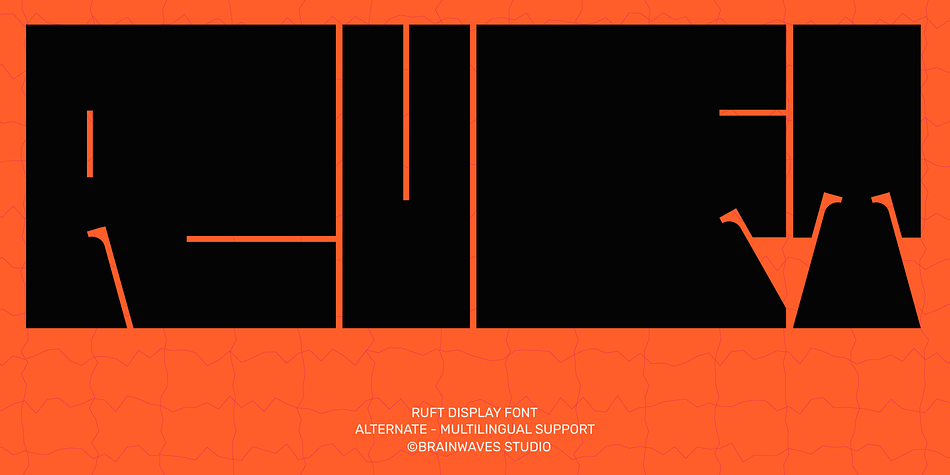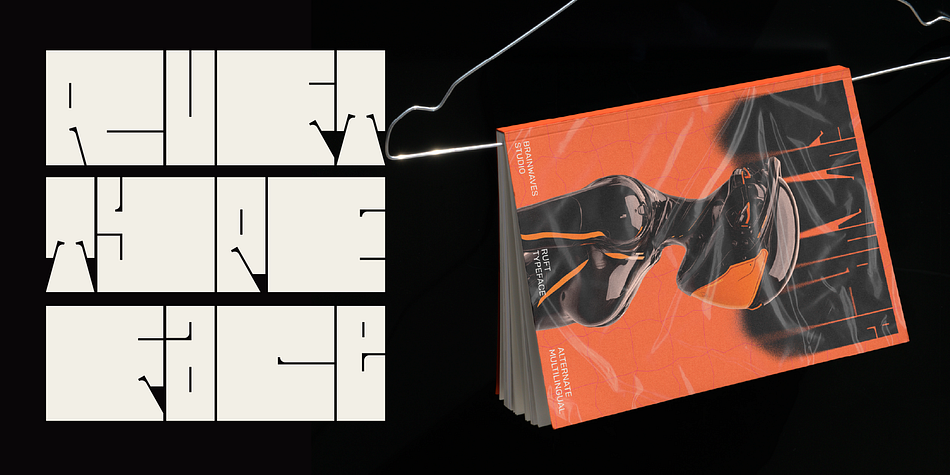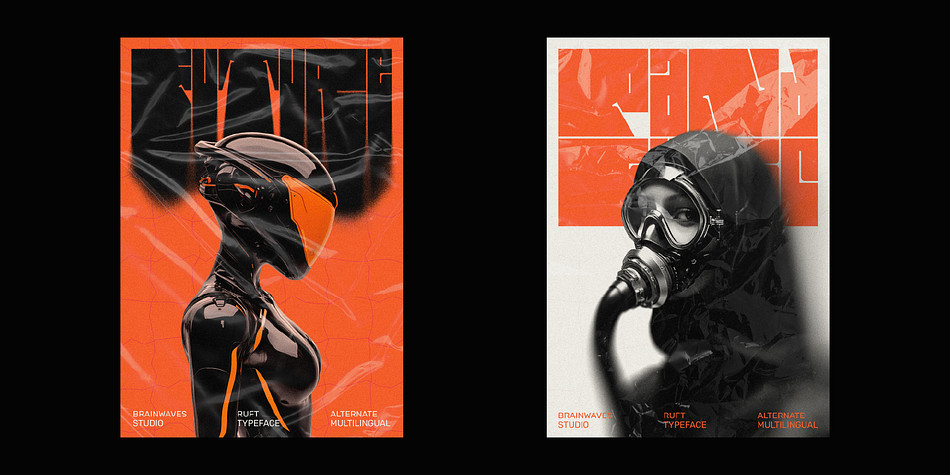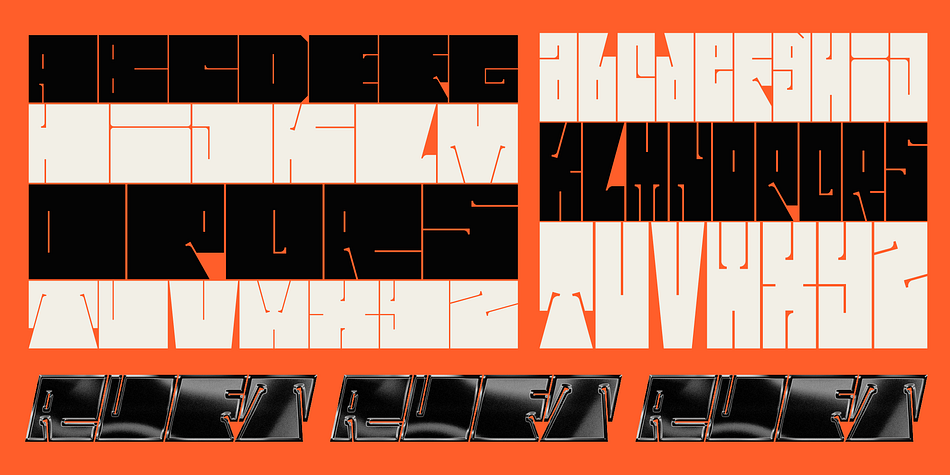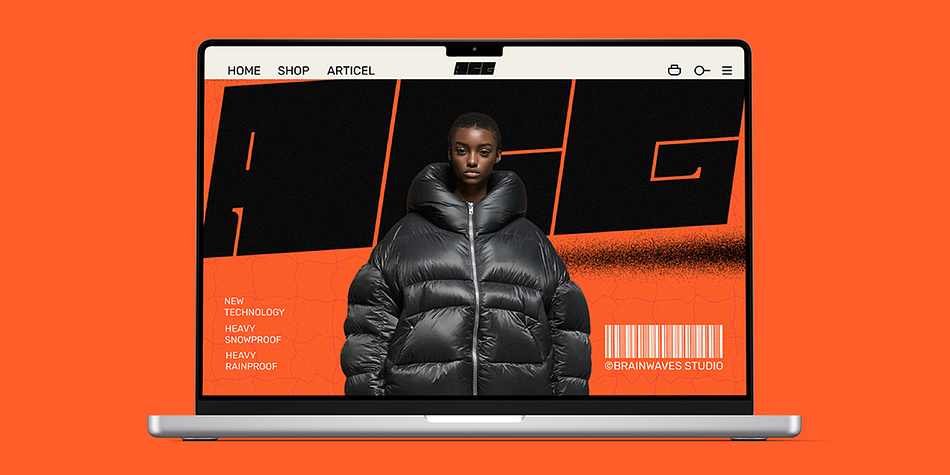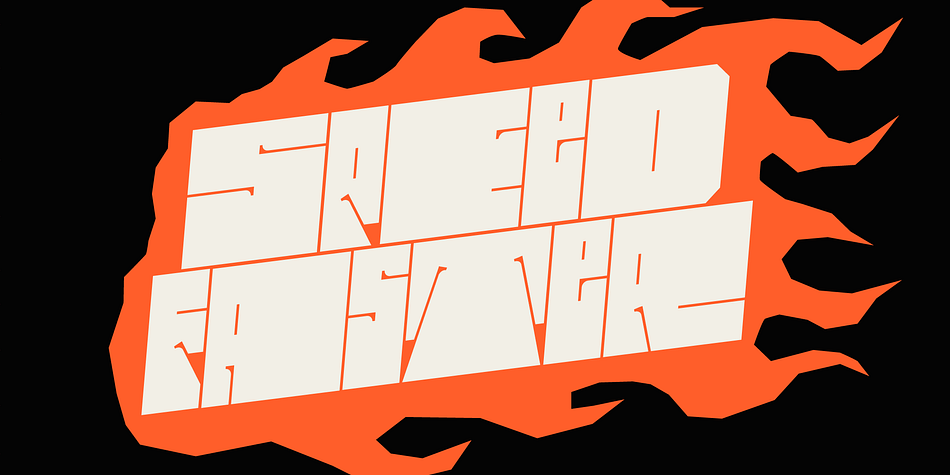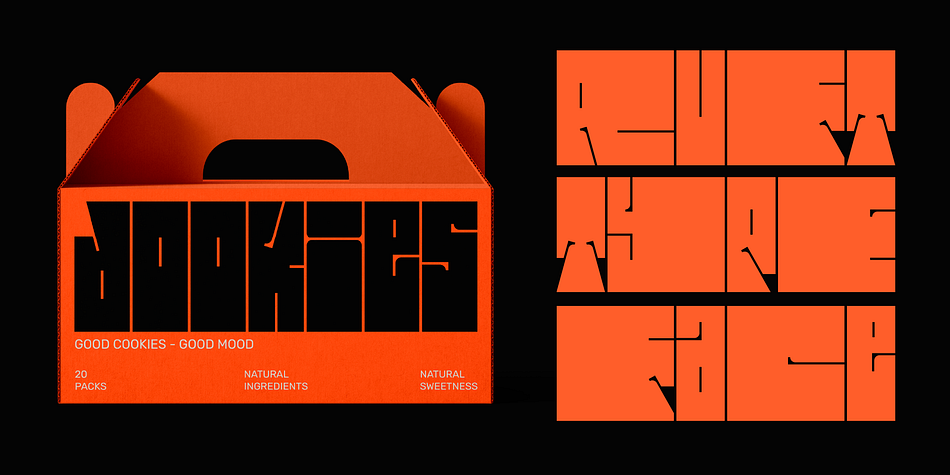
Ruft
Designed by Lucky Fitriadi, Ruft is a display sans font family. This typeface has two styles and was published by Brainwaves Studio.
RUFT is a heavy display typeface inspired by brutalist structures and modular grid systems. Each letter is crafted to occupy space with confidence—thick, compact, and sharply cut. With its futuristic edge and architectural weight, RUFT is built for statements that can’t be ignored. Perfect for music visuals, fashion branding, or experimental layouts, this font thrives in bold, disruptive design.
Beyond its visual punch, RUFT is functionally versatile with multiple character styles and wide language support.